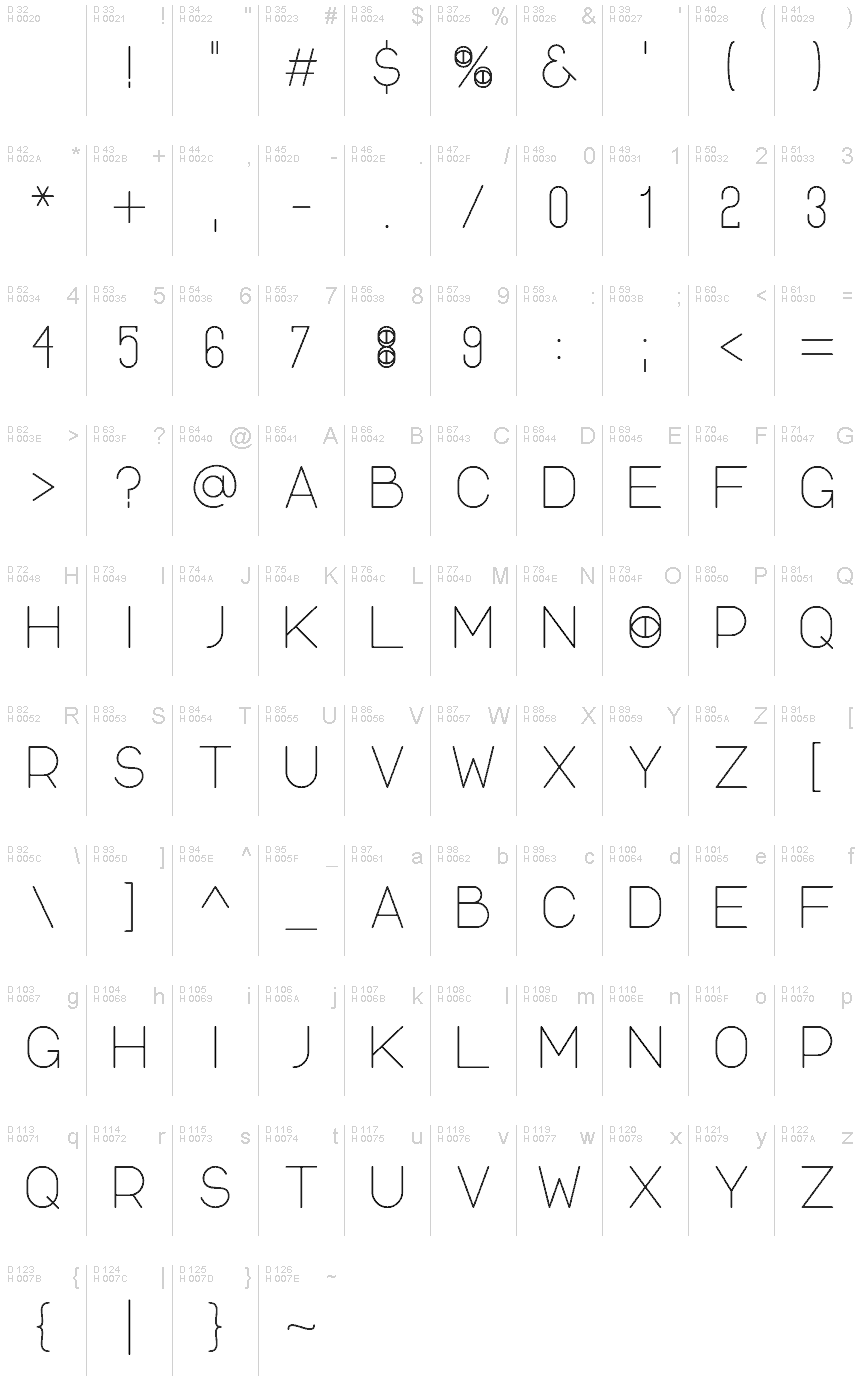
Voodoo Eye Title UltraLight
Hey, thanks for having a look at my font! 'Voodoo Eye Title' is the caps only version of the typeface. I plan to finish all lowercase letters as another typeface called 'Voodoo Eye' which will come in several weights and feature more characters.
Voodoo Eye Title